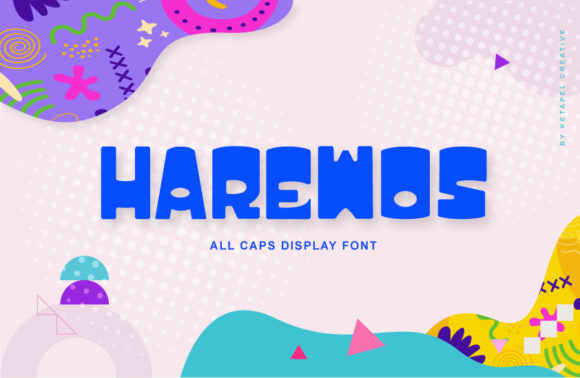
Behold Harewos Font, the ultimate visual tour de force, where boldness meets elegance in a symphony of pixels. Designed by the ingenious minds at ketapelcreative, Harewos is not just a font; it's an experience that captivates and commands attention.
With its all-caps design, Harewos exudes an air of confidence and authority. It's the perfect choice for creating statements that demand to be seen and remembered. Picture your designs adorned with Harewos, where every letter leaps off the page, leaving an unforgettable impression.
Unleash your creativity and let Harewos work its magic on your banners, posters, flyers, and book covers. Its versatility extends to social media, digital prints, and any other platform where visual impact reigns supreme. Harewos is the key to unlocking a world of design possibilities, limited only by your imagination.
But Harewos is more than just a pretty face. Its bold strokes and sharp angles create a sense of depth and dimension, adding a touch of intrigue to your designs. Imagine your words dancing across the screen, each letter a miniature masterpiece, captivating your audience and leaving them spellbound.
Gone are the days of bland, forgettable fonts. With Harewos, you have the power to ignite emotions, stir imaginations, and leave a lasting legacy. Its bold presence commands attention, while its intricate details reward closer inspection. It's a font that speaks volumes, even when used sparingly.
So, why settle for ordinary when you can have extraordinary? Embrace the boldness of Harewos Font and let your designs shine brighter than ever before. Explore its endless possibilities and elevate your creativity to new heights. Welcome to the world of visual impact, where Harewos reigns supreme.